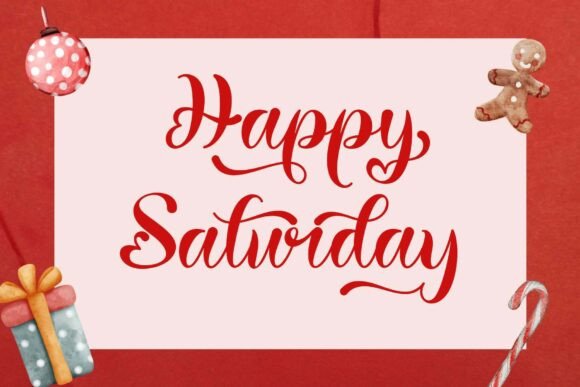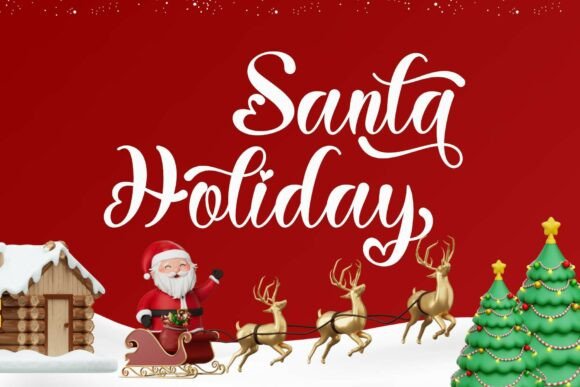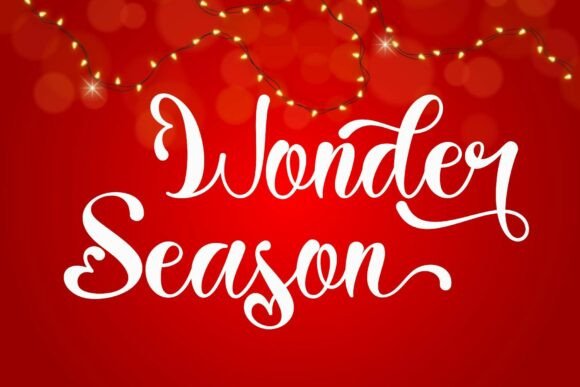
Introduction to Christmas Balethy Font
“Christmas Balethy” is a unique and beautiful handwritten font.
It features uppercase and lowercase letters, numerals, punctuations, multilingual support, ligatures, swashes, and alternates It’s perfect for Christmas, Halloween, back to school, teachers, Valentine’s Day, invitations, and more.
Key Features of Christmas Balethy Font
Why Choose Christmas Balethy Font?
Christmas Balethy Font offers exceptional quality and versatility, making it a valuable addition to your design toolkit. Whether you’re creating for personal projects or commercial use, Christmas Balethy Font delivers professional results.